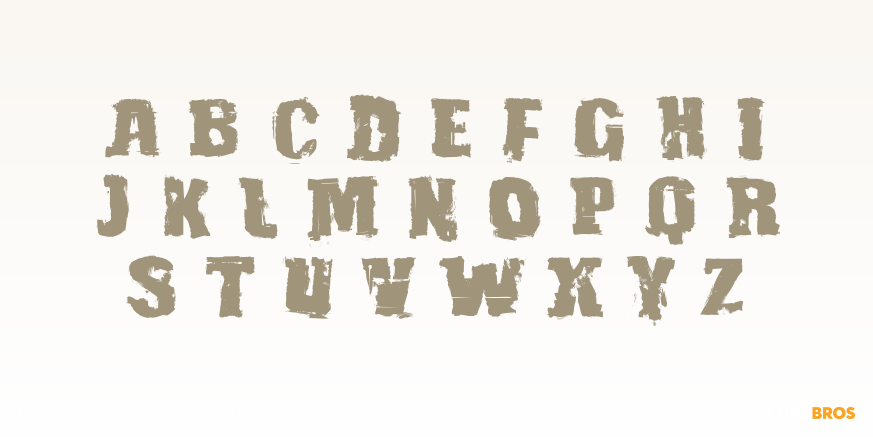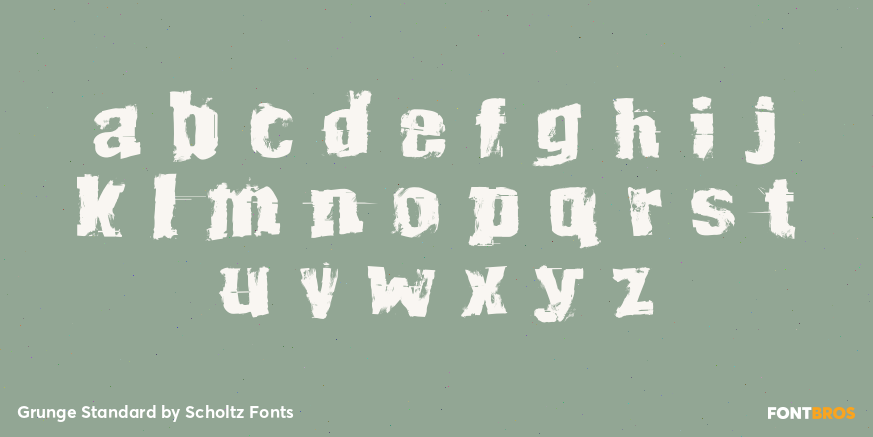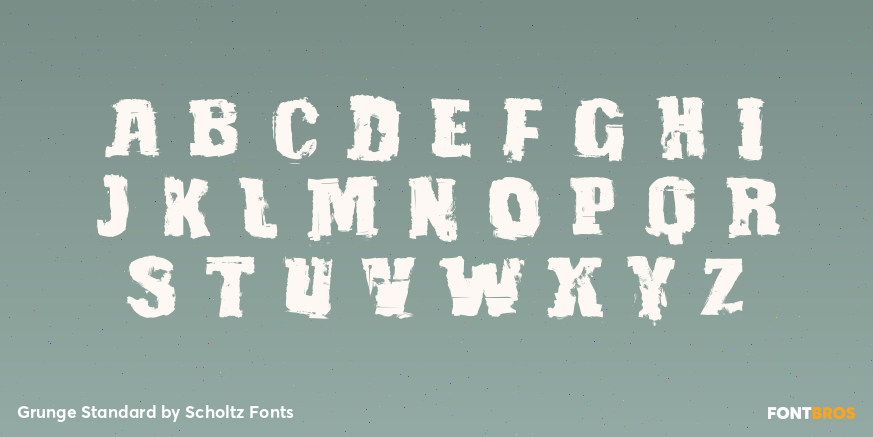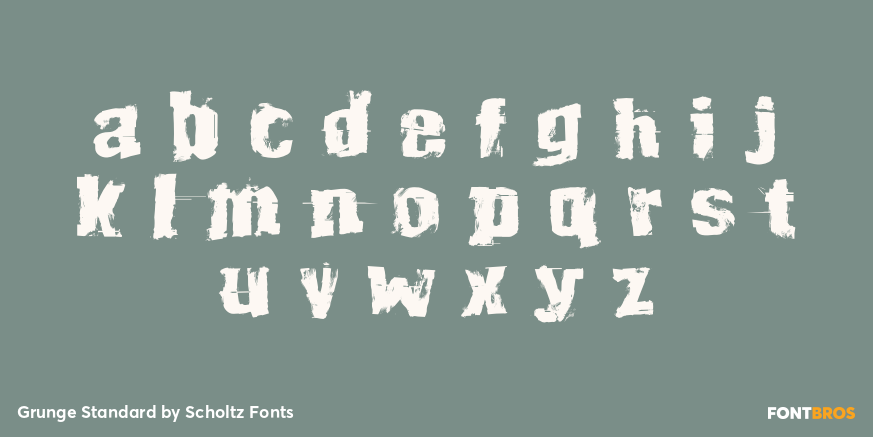
Grunge Standard
Font Family by Scholtz Fonts
Grunge Standard is to grunge fonts what Jazz standards are to the world of Jazz ? timeless, easy to use, great for every occasion. The font is easily recognized, clear and legible, just like the tune that everyone knows.
Use Grunge Standard for contemporary display work, for fashion items, for event posters, movie posters, music posters, videos, DVD covers, in fact, anywhere that grunge fonts could possibly appear.
Grunge Standard contains over 250 characters - (upper and lower case characters, punctuation, numerals, symbols and accented characters are present). It has all the accented characters used in the major European languages.